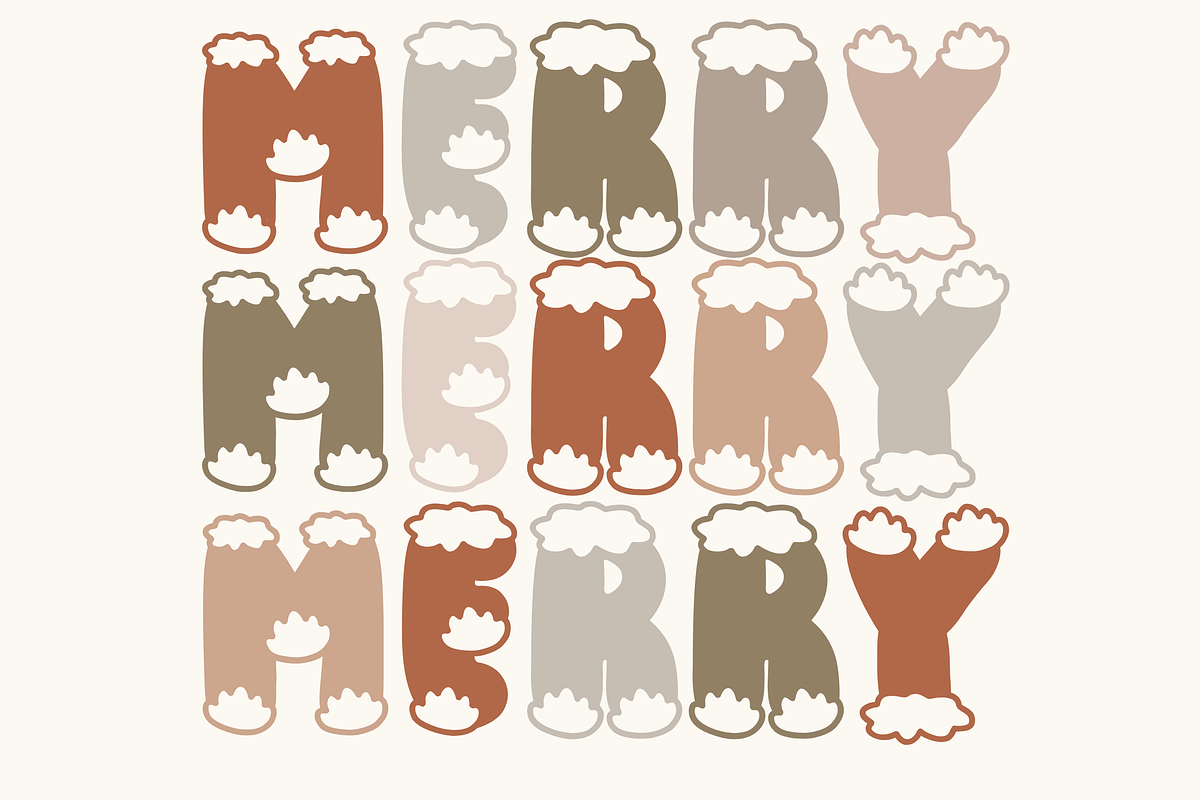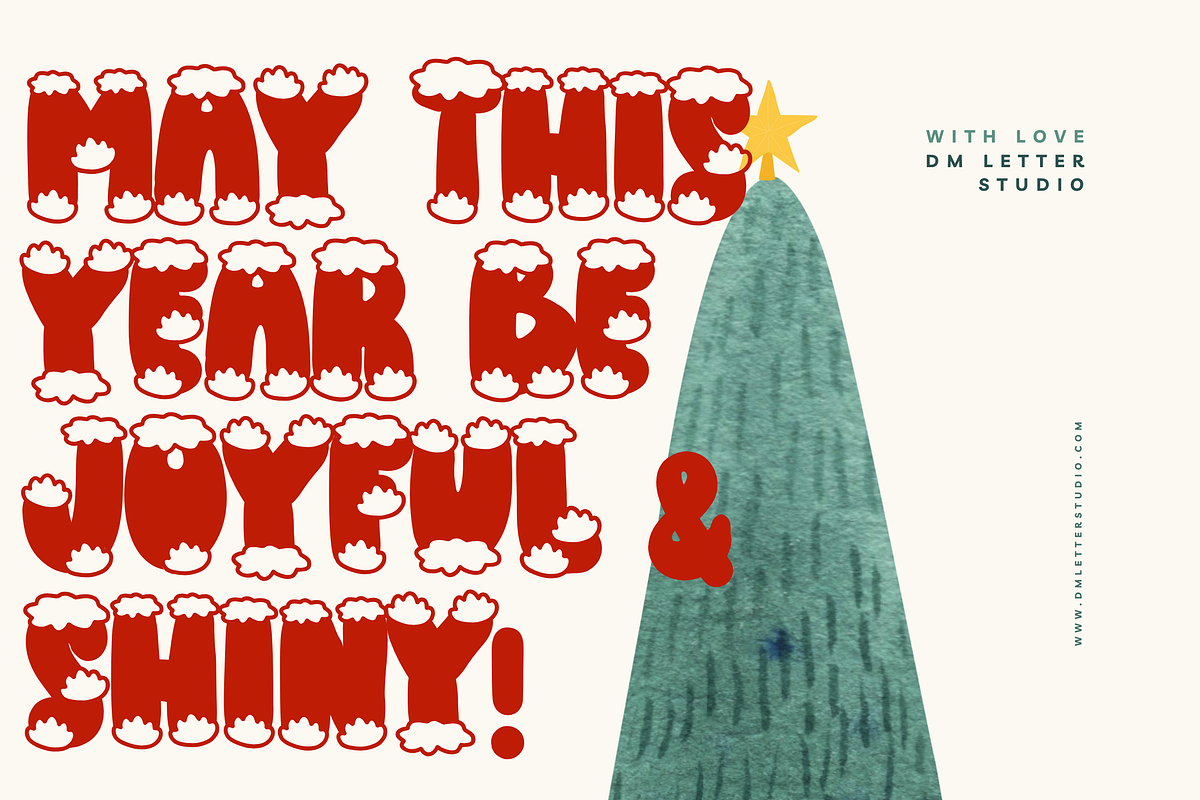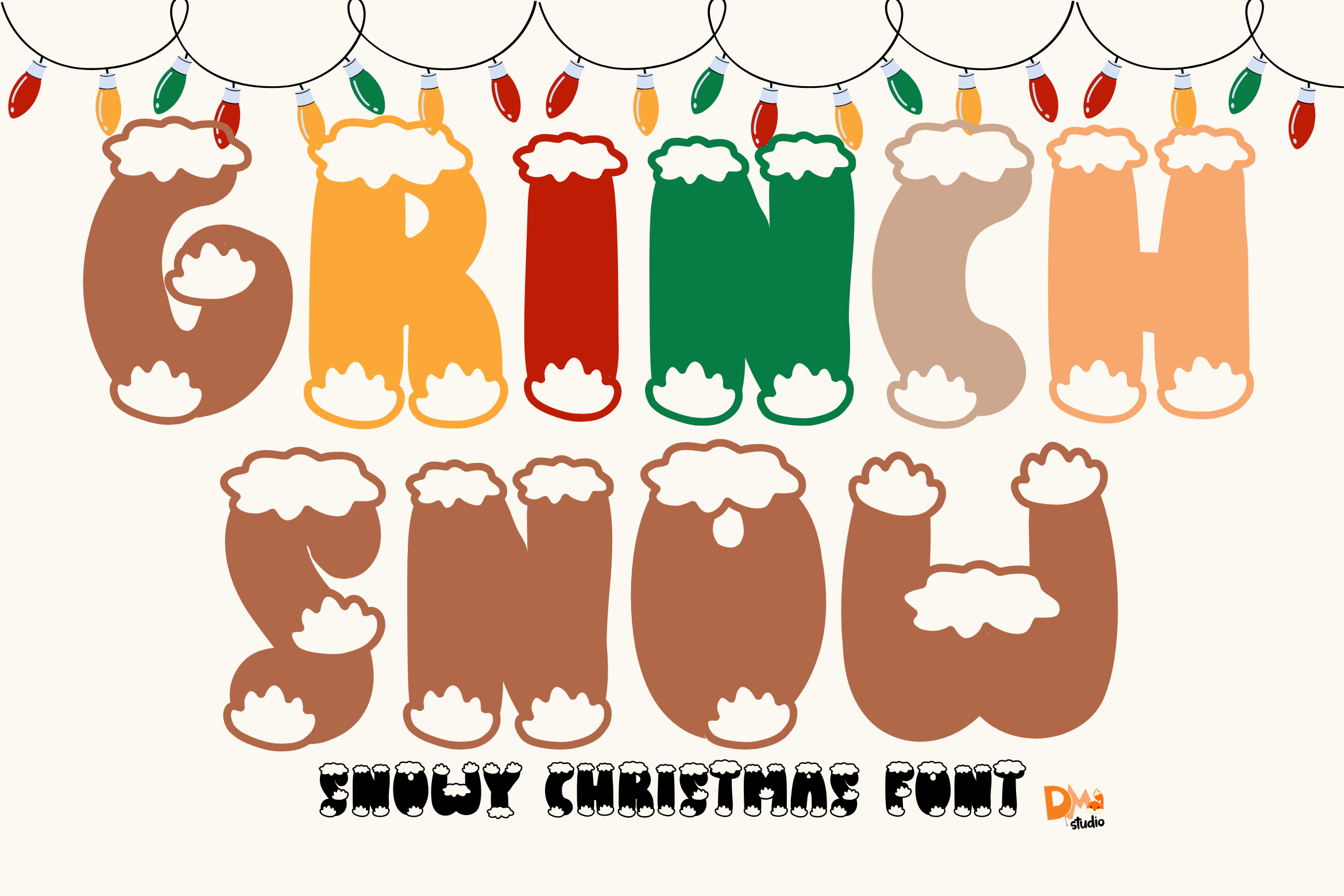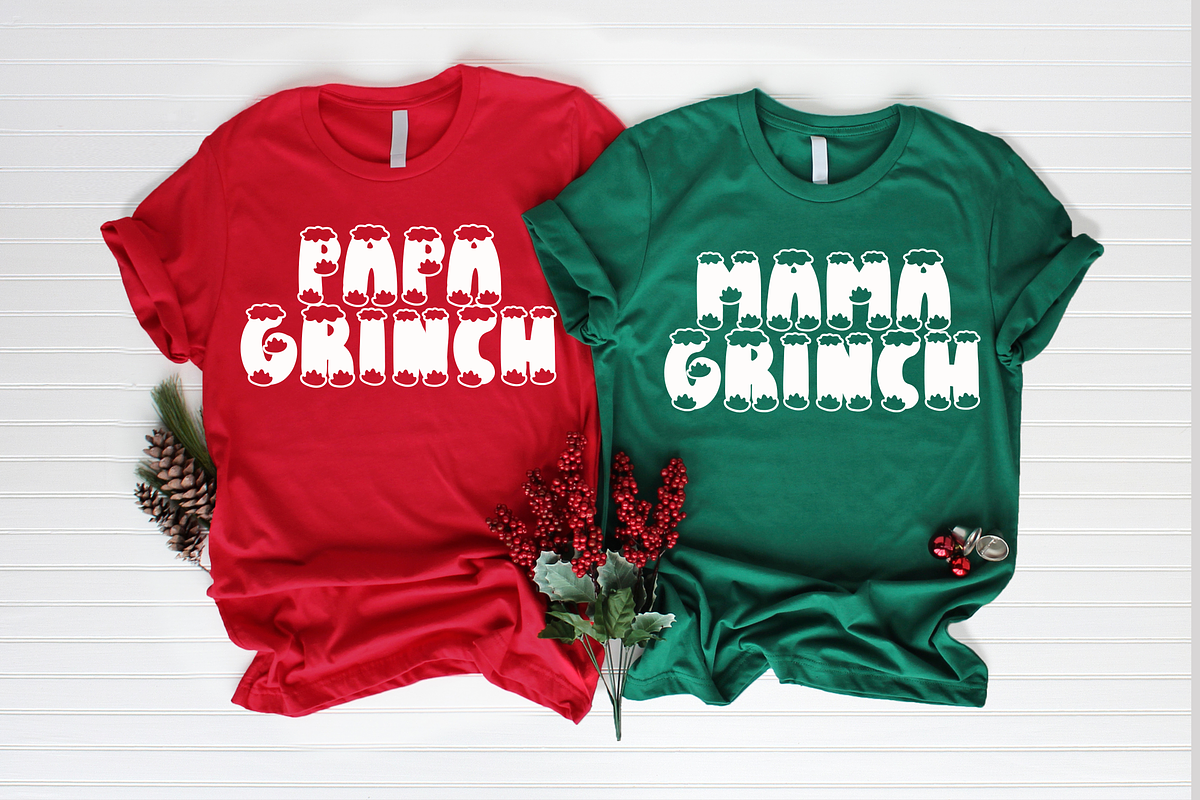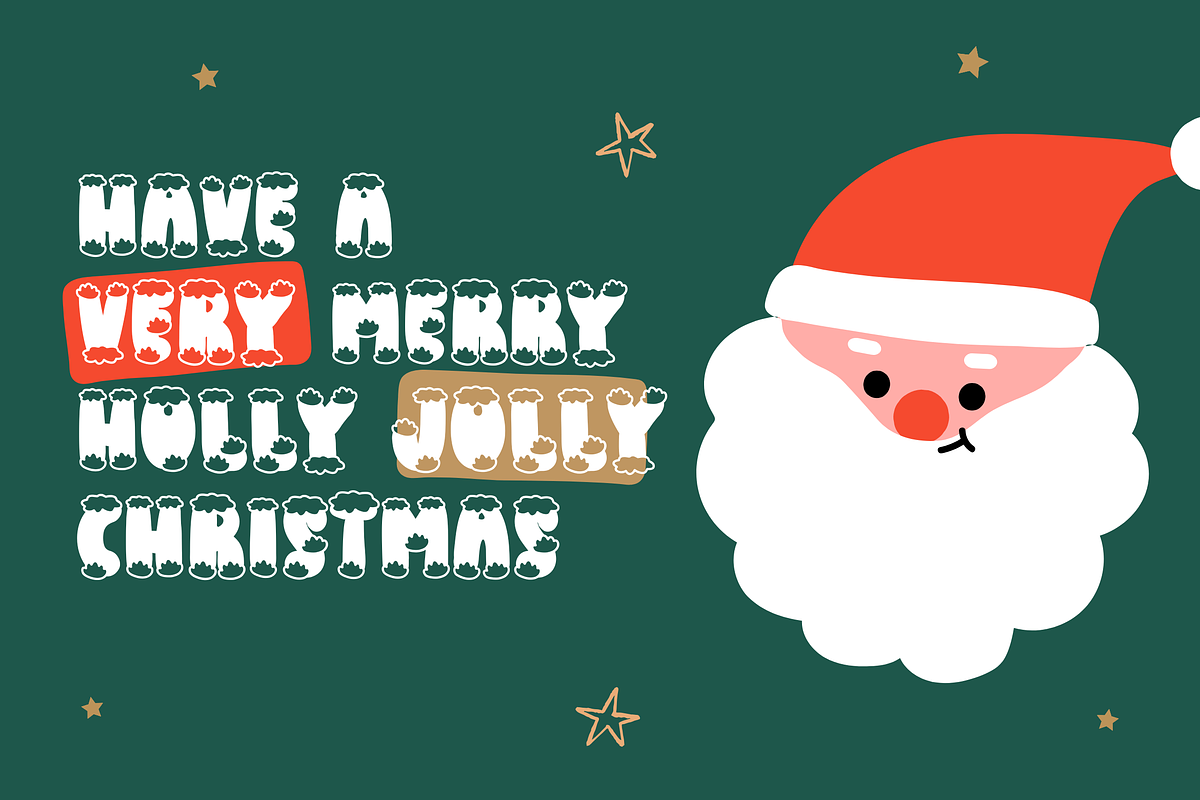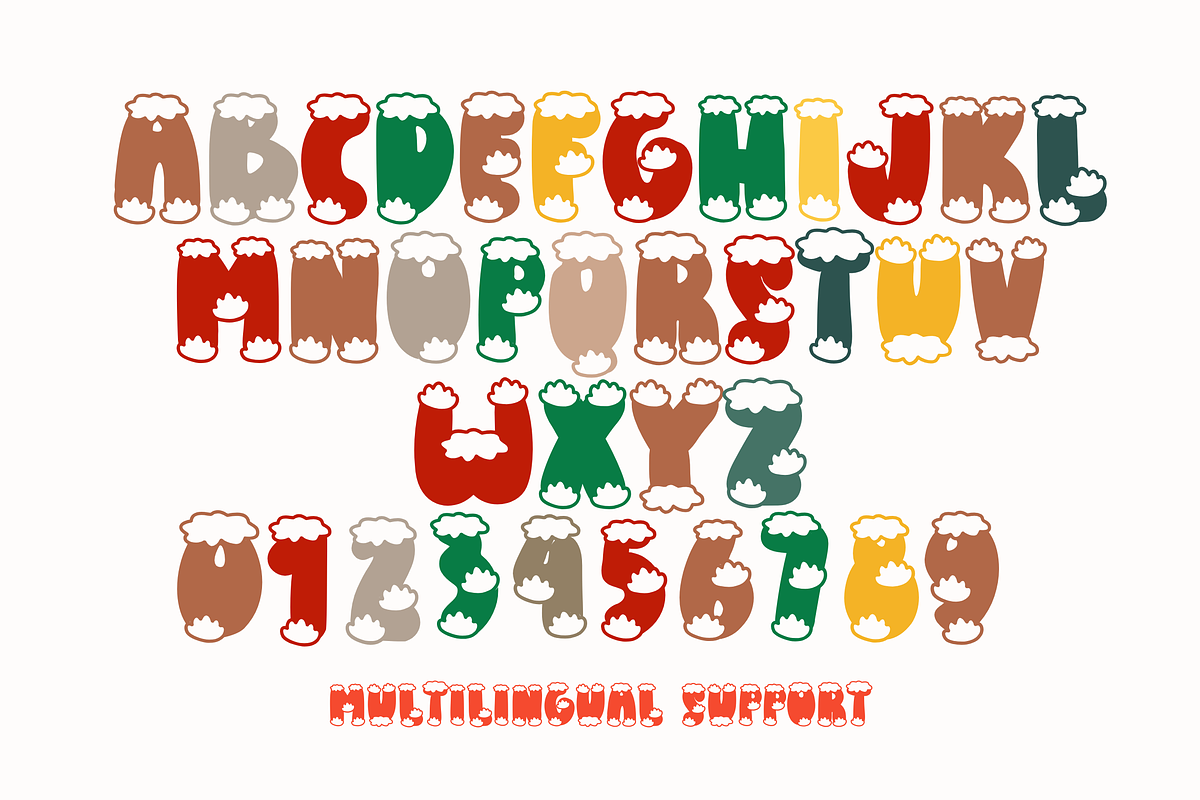
Grinch Snow - Snowy Christmas Font
Get into the festive spirit with Grinch Snow, a playful and whimsical snowy Christmas font! Inspired by the holiday season, this font features chunky, hand-drawn letters topped with fluffy snowcaps, adding a warm and cozy touch to any winter-themed project. The bright, colorful letters give off a fun holiday vibe, perfect for Christmas cards, holiday posters, children’s party invitations, gift tags, and more. Grinch Snow brings a dash of nostalgia and cheer to your designs, making it ideal for anyone looking to spread holiday joy through creative typography.
- Snow-Capped Letters: Each letter has a fluffy snowcap design, adding a wintery, festive look.
- Playful and Bold: Perfect for creating eye-catching holiday designs.
- Vibrant Colors and Bold Lettering: Adds a splash of color and warmth, making it perfect for cheerful and vibrant designs.
- Ideal for Holiday Projects: Great for Christmas cards, party invitations, seasonal social media posts, holiday merchandise, and gift tags.